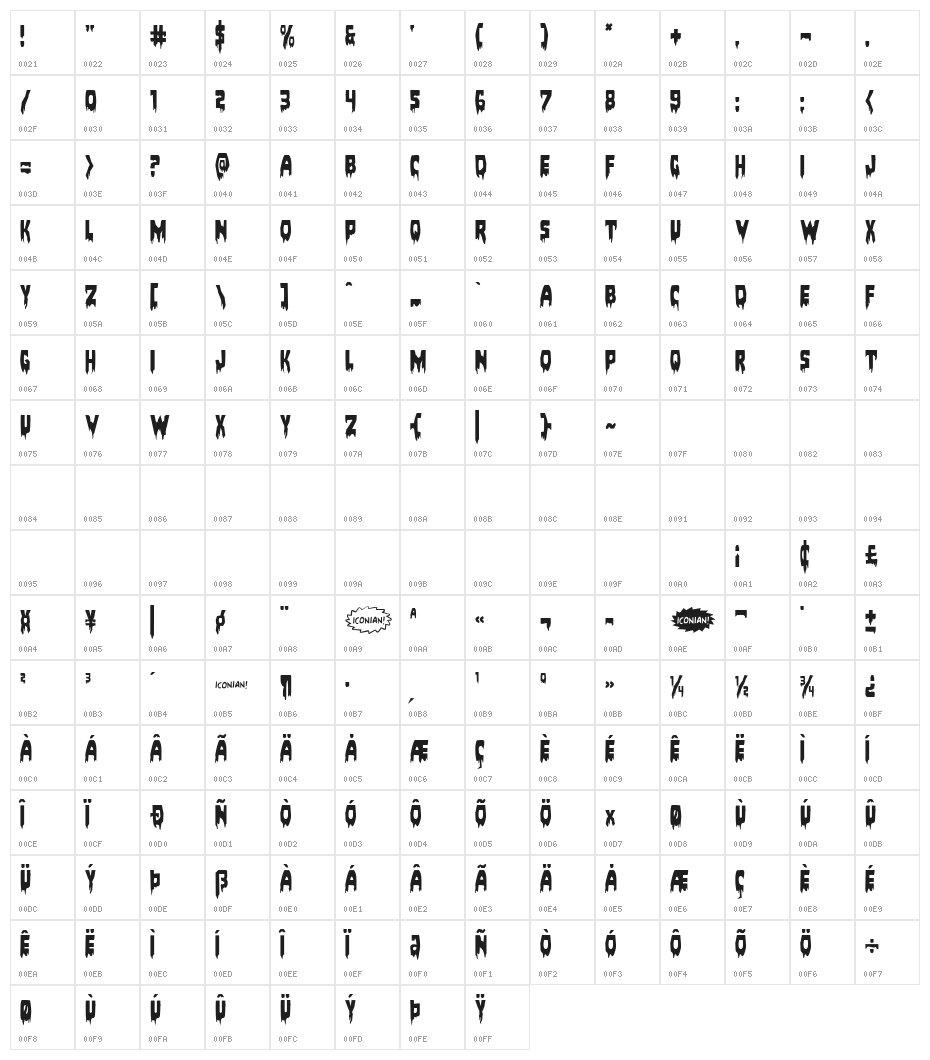
Bloodlust Regular Font
Bloodlust Regular Description
This font features a bold and dramatic style with a dripping effect that gives it a horror-themed appearance. The characters are uppercase and have a jagged, irregular outline that mimics the look of dripping blood or melting wax. This design choice creates a sense of movement and fluidity, making it ideal for Halloween or horror-themed projects. The font maintains a consistent weight throughout, ensuring readability despite its decorative elements. The spacing between characters is relatively tight, enhancing the cohesive look of the text.
Proposed ProjectsPerfect for Halloween invitations, horror movie posters, themed events, and spooky merchandise designs.